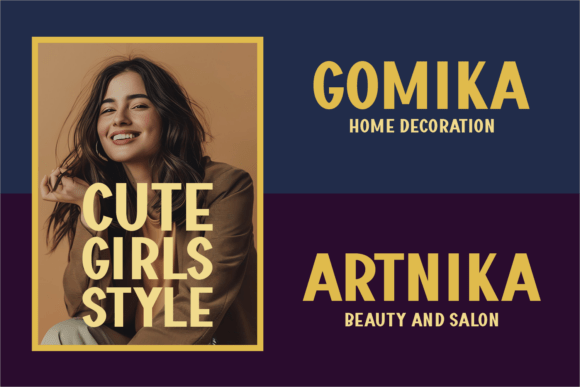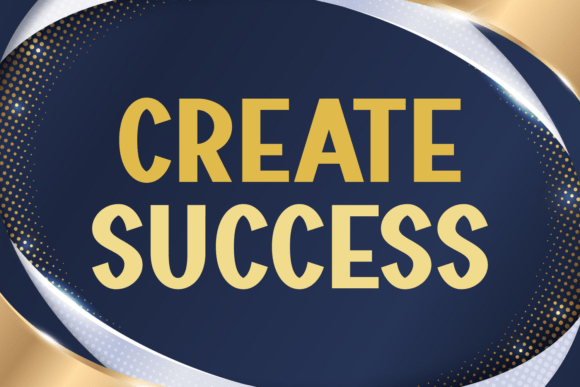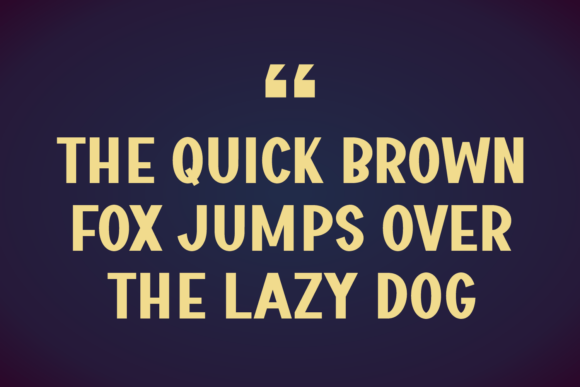
Discover the Elegance of Grand Design Font
Have you ever been in the middle of a design project, and suddenly, you’re stuck on finding the perfect font? I recall a recent experience where I was working on a fashion branding project, and my client requested a font that was both modern and timeless. After hours of searching, I stumbled upon Grand Design Font, and it instantly became my go-to choice. In this article, I’ll share my journey with Grand Design, its features, and how to make the most of this beautiful sans serif typeface.
What Makes Grand Design Stand Out?
Grand Design Font is a stylish sans serif typeface that effortlessly combines modern elegance with a timeless appeal. Its bold, friendly, and approachable style makes it perfect for high-impact headlines, fashion branding, crafting projects, and social media graphics. The clean strokes and dynamic proportions of Grand Design deliver an editorial look that’s bold yet refined.
An Honest Review of Grand Design Font
The Good: What I Love About Grand Design ✨
• ✅ Versatility: Grand Design is incredibly versatile, making it suitable for a wide range of design projects, from digital graphics to print materials.
• ✅ Readability: The font is easy to read, even in smaller sizes, which is a huge plus for body text and captions.
• ✅ Elegant yet Approachable: Grand Design strikes the perfect balance between elegance and approachability, making it ideal for brands that want to appear sophisticated yet friendly.
• ✅ Hand-Drawn Feel: The font has a sweet, hand-drawn quality that adds a personal touch to any design.
The Not-So-Perfect: A Few Quirks 🤔
• ⚠️ Limited Serif Options: As a sans serif font, Grand Design might not be the best choice for projects that require a traditional serif look.
• ⚠️ Overuse of Bold Weights: While the bold weights are stunning, overusing them can make your design look heavy-handed. Balance is key.
The Backstory of Grand Design Font
Grand Design Font was created with the intention of bridging the gap between modern design trends and timeless typography. The designer aimed to craft a font that would be both elegant and approachable, making it suitable for a wide range of creative projects. Inspired by the beauty of hand-drawn typography, Grand Design brings a touch of warmth and personality to any design.
Q: What makes Grand Design Font unique?
A: Grand Design Font is unique due to its blend of modern elegance and timeless appeal, along with its hand-drawn, friendly vibe.
Q: Is Grand Design suitable for body text?
A: While Grand Design is primarily designed for headlines and titles, its clean strokes and readability make it suitable for short paragraphs of body text.
Q: Can I use Grand Design on social media graphics?
A: Absolutely! Grand Design’s bold and friendly style makes it perfect for social media graphics, where you want to grab attention and convey a positive vibe.